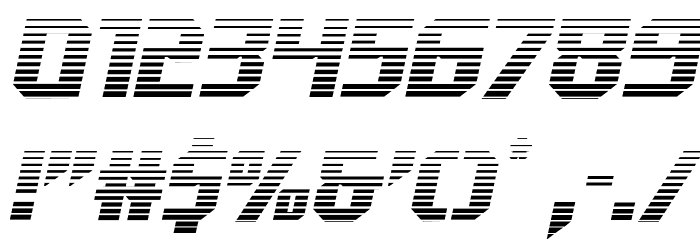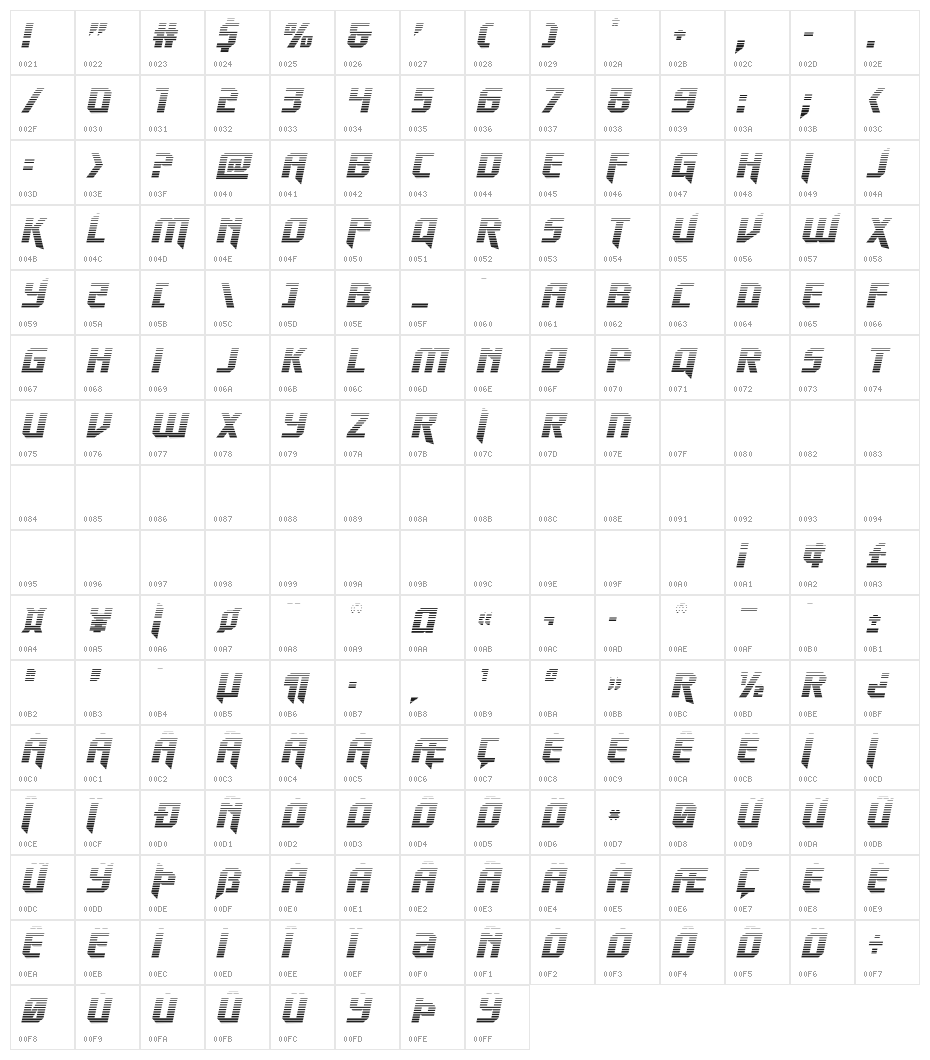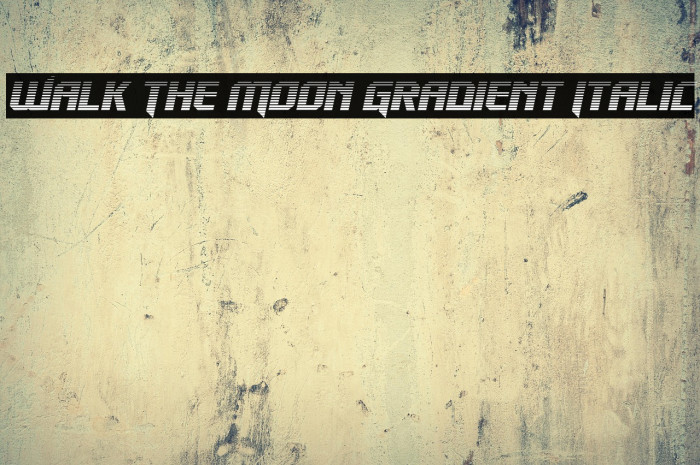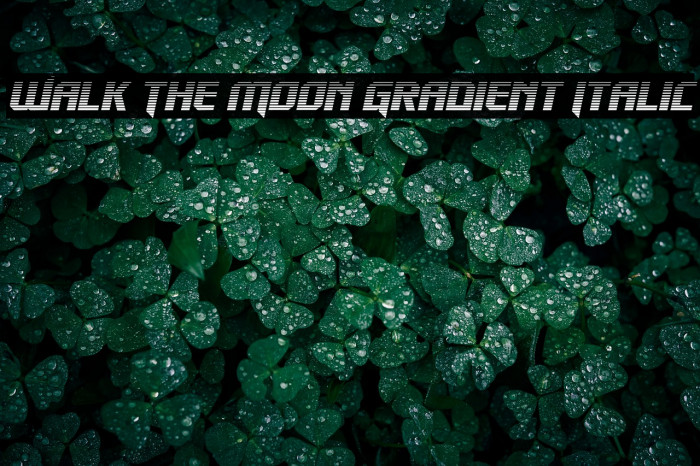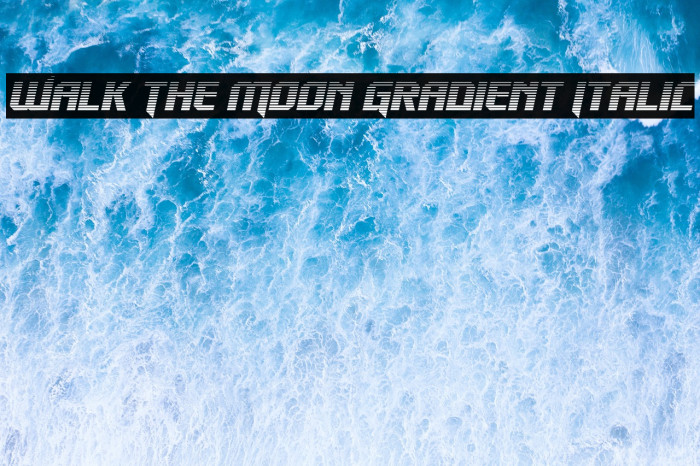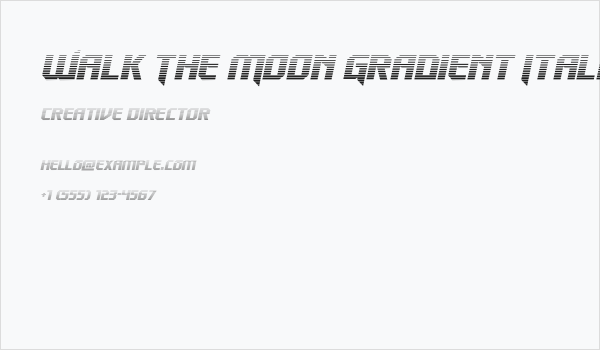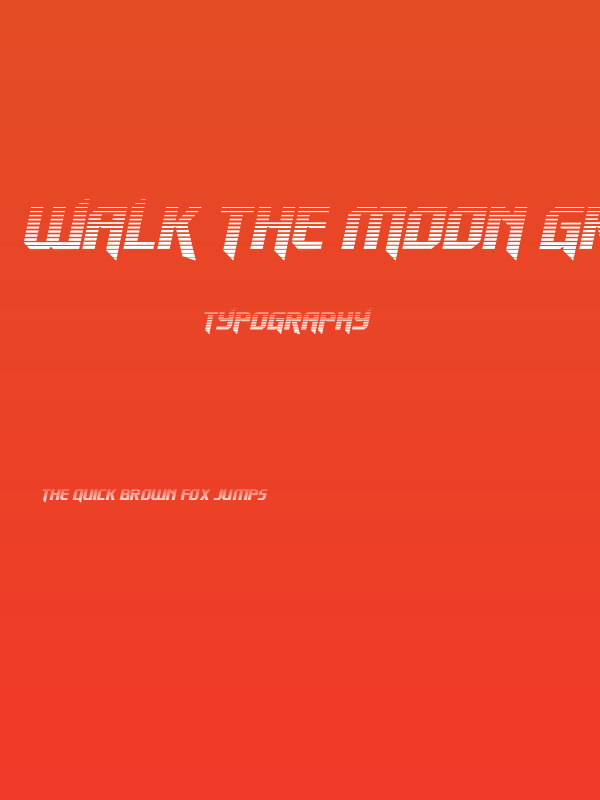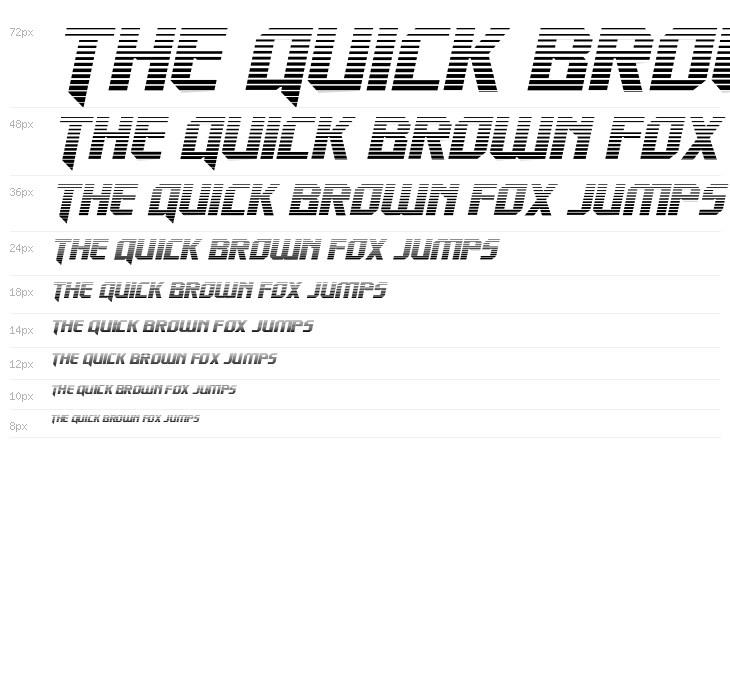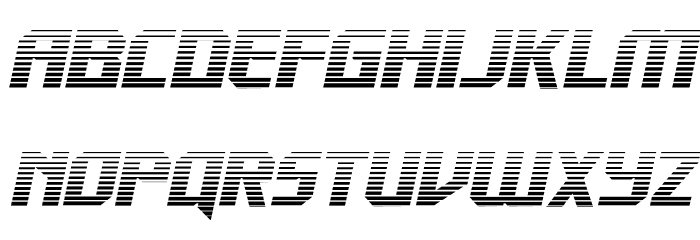
Walk The Moon Gradient Italic Font
Walk The Moon Gradient Italic Description
This font features a bold, italicized style with a distinct gradient effect that gives it a dynamic and futuristic appearance. The characters are composed of horizontal lines that create a sense of movement and depth, making it ideal for eye-catching designs. The uppercase and lowercase letters maintain a consistent style, with sharp angles and a slightly condensed form. Numbers and special characters are designed to match the overall aesthetic, ensuring a cohesive look across all text elements. The font's unique design makes it suitable for projects that require a modern and edgy feel.
| Proposed Projects | Ideal for branding, posters, album covers, and digital media that require a modern, edgy look. |